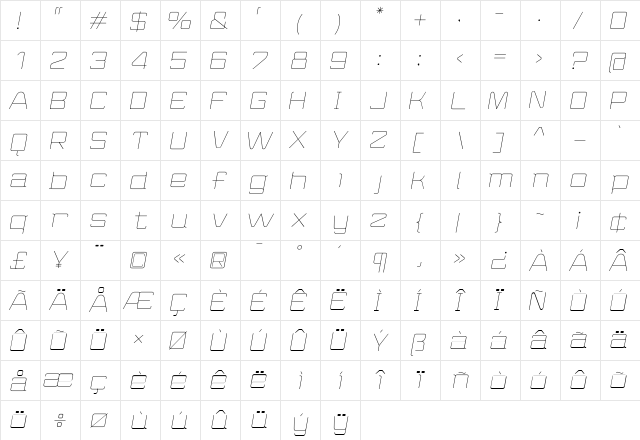
Wired Light
Design Context for Wired Typeface
Wired offers clean, dependable letterforms without strong stylistic allegiance, making it a practical choice for designers who need flexibility. Its slender proportions lend an understated elegance to any composition.